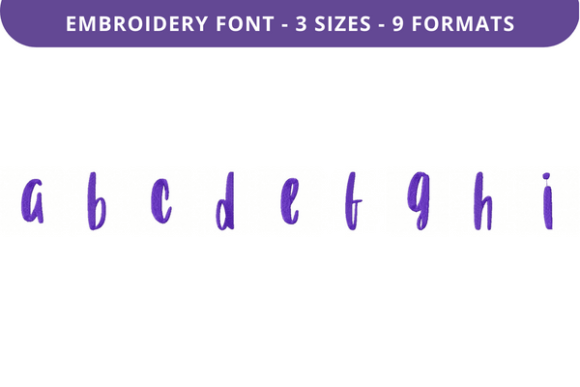
Fifty First Dates Font a to I for Creative Embroidery
Embroidery has become more than just a craft—it's an art form that blends creativity with practicality. Whether you're designing custom apparel, creating personalized gifts, or building a brand through textile-based content, the right font can make all the difference. Fifty First Dates Font a to I is a versatile embroidery font designed to elevate your projects with elegant and expressive text.
What Is Fifty First Dates Font a to I?
Fifty First Dates Font a to I is a machine embroidery design that offers a unique collection of lettering styles perfect for adding personal touches to fabric. This font is ideal for writing names, dates, quotes, and other text elements that bring meaning and character to your creations. The design includes multiple file formats, ensuring compatibility with various embroidery machines and software platforms.
Why It Matters to Different Audiences
The appeal of Fifty First Dates Font a to I varies depending on the user’s role and goals. For instance, hobbyists might use it to create custom items for personal use, while professionals may rely on it for branding or product packaging. Each audience brings its own set of priorities and expectations when it comes to embroidery fonts.
Beginners: A Gateway to Creativity
For those new to embroidery, Fifty First Dates Font a to I serves as a valuable starting point. Its clean lines and consistent style make it easy to work with, allowing beginners to focus on mastering the technique rather than struggling with complex designs. Many find that this font helps them build confidence in their skills and encourages experimentation with different text placements and fabric types.
One beginner might use this font to embroider a name on a gift for a loved one, while another could incorporate it into a DIY project like a custom pillow or tote bag. The versatility of the font ensures that even those with limited experience can create meaningful and visually appealing results.
Professionals: Enhancing Brand Identity
For professionals such as designers, marketers, and small business owners, Fifty First Dates Font a to I offers a way to maintain a cohesive brand image across various textile products. The font’s aesthetic can be used consistently in logos, signage, and promotional materials, reinforcing brand recognition and professionalism.
A marketing professional might use this font to create embroidered promotional items for events or campaigns, while a designer could integrate it into product packaging to add a touch of elegance. The ability to customize and scale the font makes it a powerful tool for visual storytelling and brand consistency.
Creators and Educators: Tools for Teaching and Inspiration
Creatives and educators often seek resources that are both functional and inspiring. Fifty First Dates Font a to I fits this need by offering a reliable and aesthetically pleasing option for teaching embroidery techniques or showcasing creative projects. Its simplicity allows for easy demonstration, making it an excellent choice for classroom settings or online tutorials.
An educator might use this font to create sample embroidery pieces for students to follow, helping them understand how to approach text-based designs. Similarly, a creator could use it as part of a larger project, such as a custom quilt or wall hanging, to demonstrate how typography can enhance visual composition.
Hobbyists and Consumers: Personalized Touches
Consumers and hobbyists often look for ways to personalize their everyday items. Fifty First Dates Font a to I provides an accessible solution for adding unique details to clothing, accessories, and home decor. Its adaptability means it can be used in a wide range of applications, from simple monograms to elaborate text-based artwork.
A hobbyist might use this font to embroider a special date onto a piece of fabric, while a consumer could incorporate it into a custom T-shirt or apron. The font’s availability in multiple formats also makes it convenient for users who prefer working with different embroidery machines or software.
Evaluating Priorities: What Matters Most?
When choosing an embroidery font like Fifty First Dates Font a to I, users should consider their specific needs and preferences. Some prioritize ease of use, looking for fonts that are simple to implement and compatible with their equipment. Others may value quality, seeking fonts that produce sharp, clear results.
Flexibility is another key factor—fonts that offer multiple file formats or adjustable sizes can be more versatile for different projects. Speed and reliability are also important, especially for those who need to complete tasks efficiently. Ultimately, the best font is one that aligns with the user’s goals and workflow.
Practical Examples for Different User Types
- Beginner: Use the font to embroider a name on a shirt or a custom mug.
- Professional: Incorporate the font into a logo or branding material for a boutique or event.
- Creator: Use the font in a large-scale project like a quilt or wall art.
- Teacher: Demonstrate the font in a classroom setting to help students learn embroidery basics.
- Consumer: Add a meaningful quote or date to a personalized item like a handbag or scarf.
Is Fifty First Dates Font a to I Right for You?
If you’re looking for a reliable, high-quality embroidery font that can be used across a variety of projects, Fifty First Dates Font a to I is worth considering. It offers a balance of style, functionality, and versatility that appeals to both casual users and experienced creators.
Whether you’re a hobbyist, a professional, or someone who simply enjoys personalizing items, this font can help you achieve your creative goals. By understanding your own needs and priorities, you can determine whether this font is the right fit for your next project.